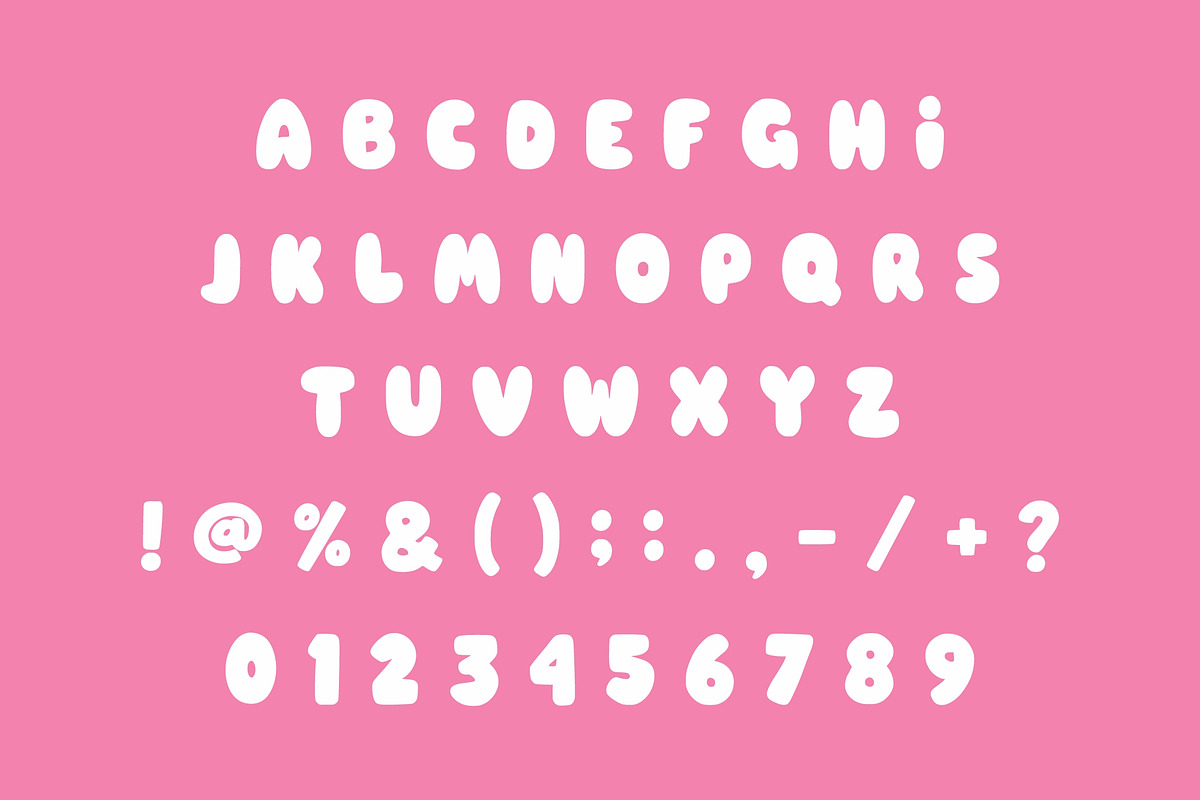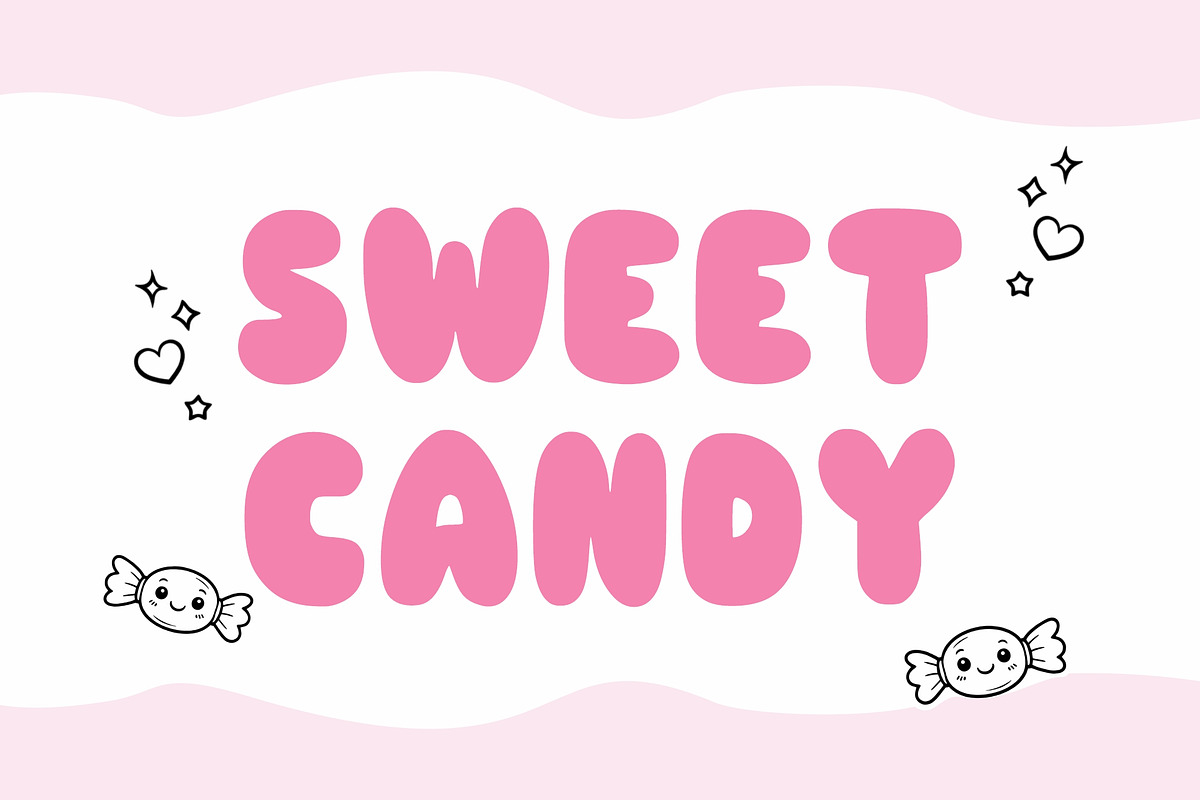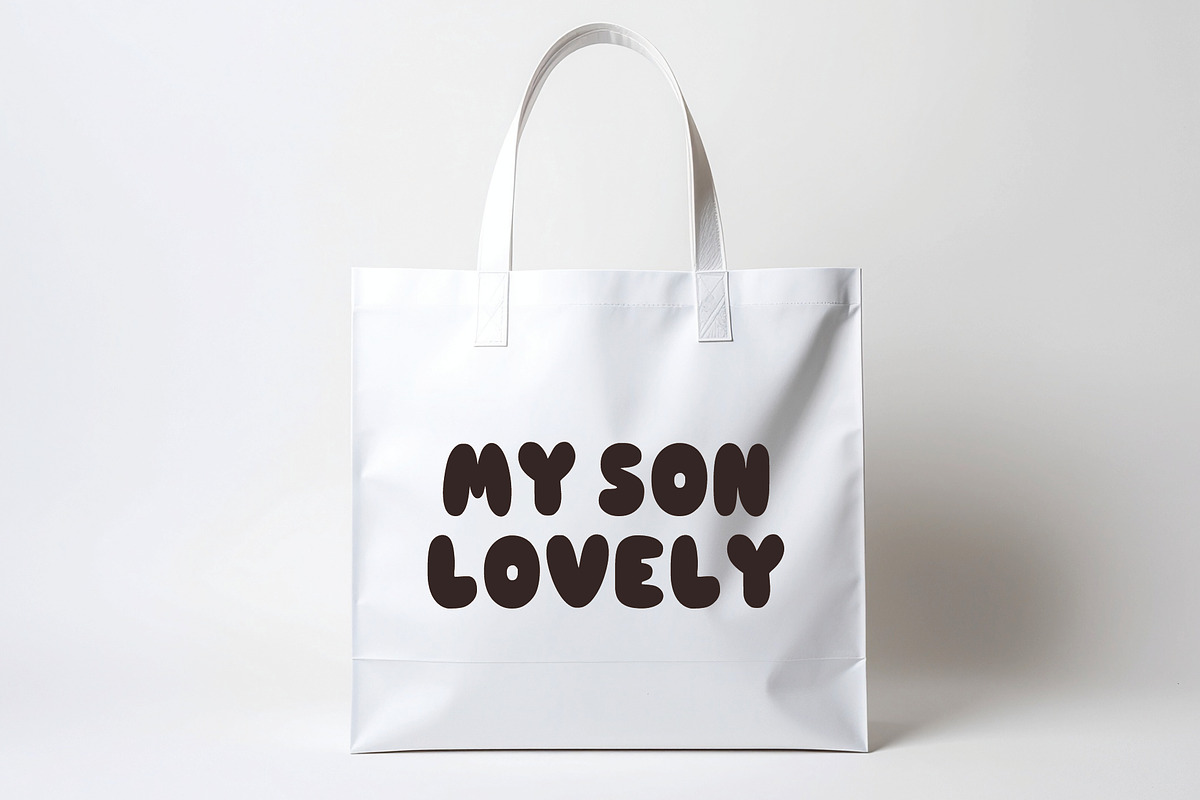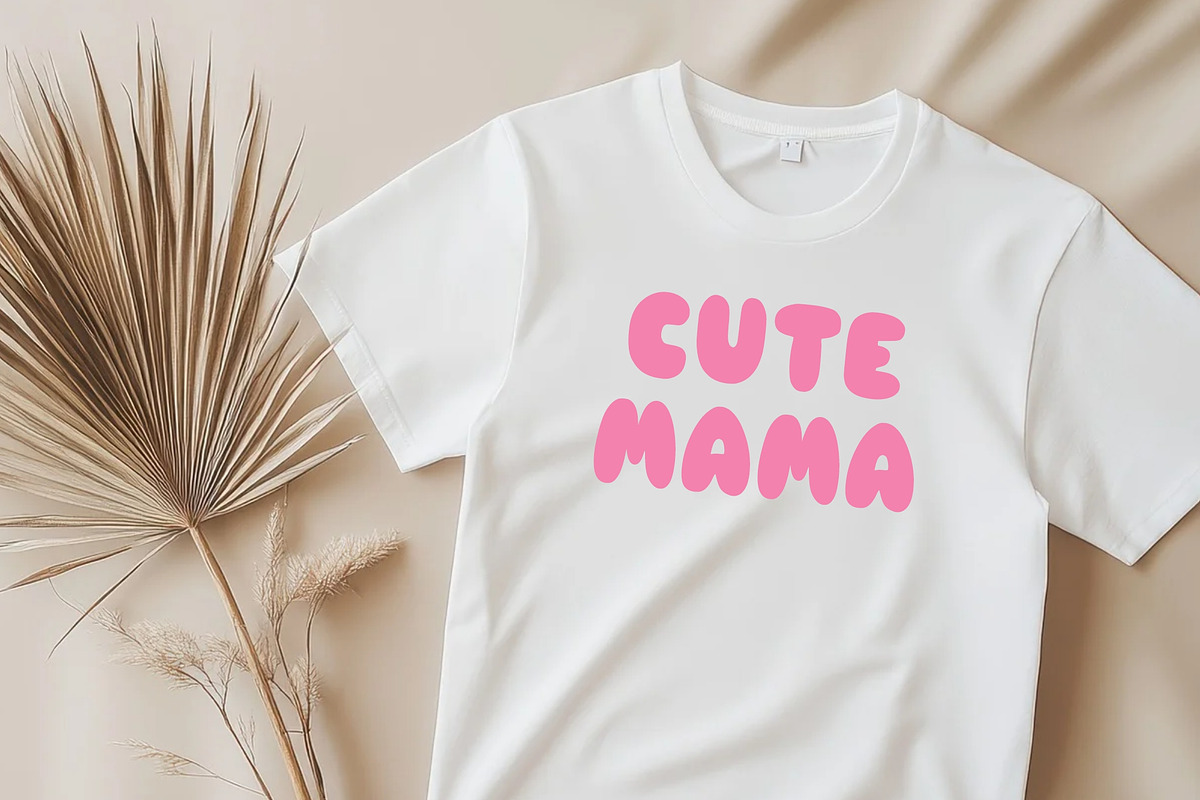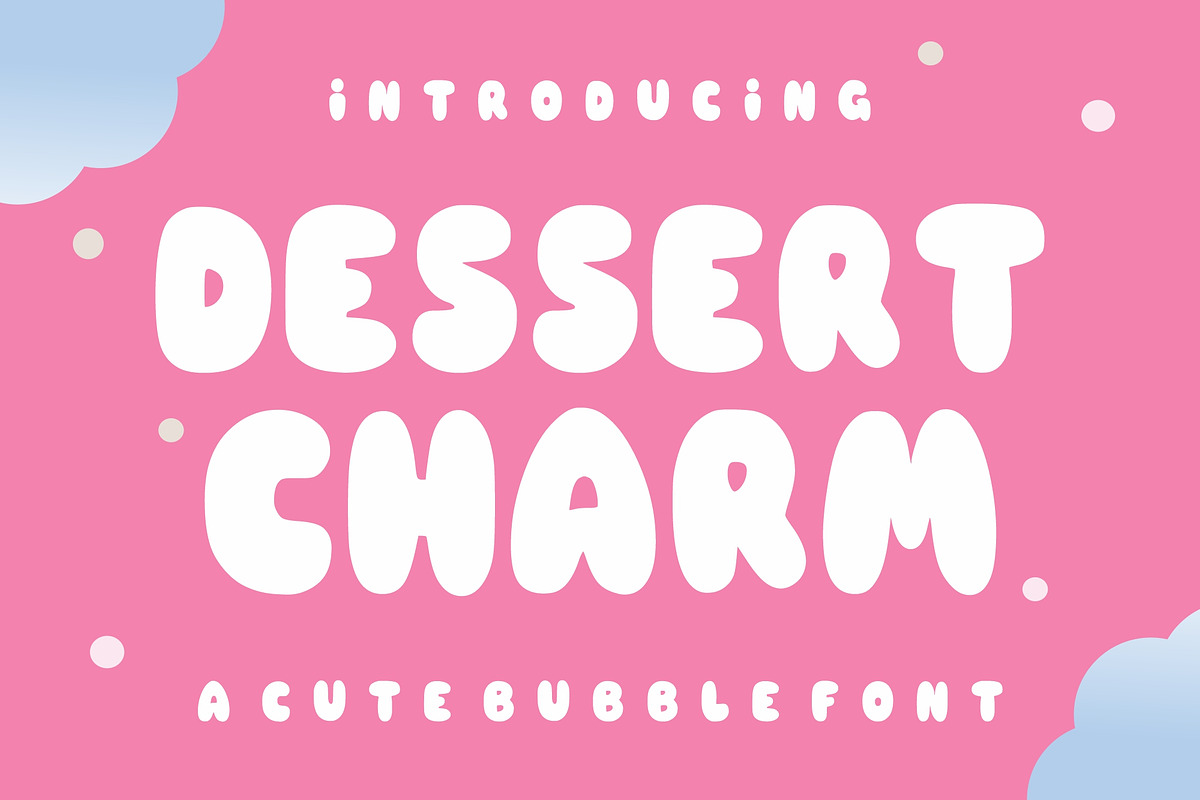
Dessert Charm
Dessert Charm is a fun and adorable bubble-style display font inspired by soft dessert colors and cheerful vibes. Featuring rounded, bold, and friendly letterforms, this font is perfect for projects that need a cute and eye-catching look.
This font works beautifully for kids branding, bakery packaging, stickers, social media posts, invitations, posters, apparel, and digital products. Its playful style makes your designs feel warm, fun, and approachable.
Whether you're creating logos, headlines, or decorative text, Dessert Charm will bring sweetness and charm to your designs.